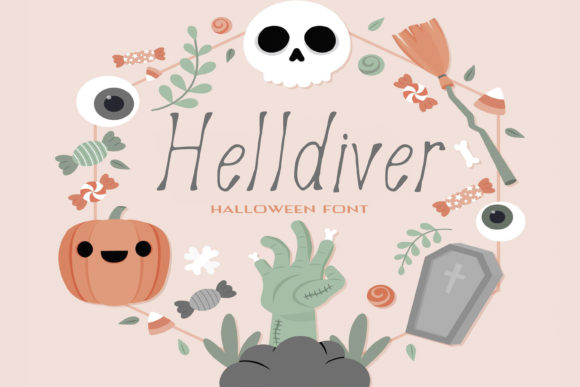
Introducing Helldiver Font - An Enchanting Script for Your Halloween Delights!
Unleash the spirit of Halloween with Helldiver Font, a mesmerizing handwritten script that oozes spooky charm and eerie elegance. Inspired by the enigmatic festivities of All Hallows' Eve, this font will cast a mystical spell upon your designs, transforming them into captivating works of art.
With its slender, graceful strokes and a touch of mischievousness, Helldiver Font evokes the spine-tingling essence of Halloween. It's perfect for crafting invitations that whisper secrets of the night, creating greeting cards with a touch of ghostly allure, or adding a haunting touch to your social media posts.
Whether you're a seasoned crafter or a design enthusiast, Helldiver Font will bring a touch of the supernatural to your creations. Its versatility allows you to explore a realm of haunting possibilities, from whimsical Halloween decorations to bone-chilling website designs.
So, if you seek to conjure an authentic Halloween atmosphere, embrace the enchanting power of Helldiver Font. Let its spooky charm dance across your designs, enchanting your audience and leaving them under a spell of pure Halloween magic!